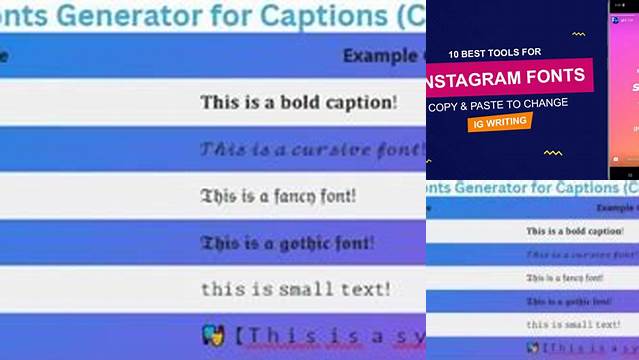
Cool IG Fonts: Copy & Paste Magic For Your Posts
Hey everyone! Let's talk about spicing up your Instagram game. You know, making your bio, captions, and stories pop with some seriously cool fonts? Forget the boring default fonts – we're diving into the world of fonts IG copy and paste! This is all about how you can easily grab unique fonts and add them to your Instagram posts to grab attention and express your personality. Get ready to make your Instagram profile stand out from the crowd!
H2: Mastering the Art of Fonts IG Copy and Paste: A Beginner's Guide
Alright, so you're ready to level up your Instagram font game? Awesome! The secret weapon here is the magical fonts IG copy and paste technique. It's super simple, but it opens up a whole universe of design possibilities. First things first, you need to find a cool font generator. There are tons of free online tools out there. Just type "Instagram font generator" into your search engine, and you'll be flooded with options. These generators are typically super user-friendly. You just type your text into the provided box, and the tool instantly converts it into a bunch of different font styles. You'll see everything from elegant cursive to bold, funky styles and even some super-creative symbols and characters. Once you've found the perfect font for your needs, simply copy the text from the generator. Now comes the easy part: pasting it into your Instagram bio, captions, or stories. On your phone, just tap and hold in the text field until the "Paste" option appears. Boom! Your text is transformed. It's that easy, guys! Keep in mind that Instagram sometimes has limitations on how certain fonts appear. Experiment with different font styles to see what works best for your brand and aesthetic. Also, bear in mind that not all fonts will display perfectly on every device, but most of them are pretty compatible. This method allows you to sidestep the native Instagram font limitations. This provides a unique way to express your personality. It's a simple yet powerful way to make your profile visually unique. Remember, your Instagram profile is your digital storefront, and a good font can make all the difference. Make sure the fonts you choose align with your brand’s style and the message you’re trying to convey. Get creative, have fun, and let your personality shine!
H2: Top Free Fonts IG Copy and Paste Generators You Need to Know
Okay, let's get down to the nitty-gritty. Finding the right fonts IG copy and paste generator is the key to success. Luckily, there's a plethora of excellent, free tools available online. One of the most popular is LingoJam. It's super easy to use, with a clean interface and a wide variety of font styles to choose from. You simply type your text, and it generates tons of different options instantly. Another fantastic option is Instagram Fonts, which is also incredibly user-friendly. It offers a good selection of fonts, from the classic to the quirky, and allows you to preview your text in real-time. If you’re looking for something a little more advanced, consider using a site like Cool Fancy Text Generator. This one lets you create fancy text and includes a few more stylized options, like adding small symbols and decorative elements. Remember to also check out sites such as Stylish Text, which lets you customize your text with special characters and effects. Using different generators gives you a much wider array of choices. When picking a generator, consider its ease of use and the variety of fonts available. Think about your branding! Do you lean towards something elegant, minimalist, or bold and playful? Choose a generator that aligns with your style. Always test your generated text on your Instagram profile to make sure the fonts display correctly on your end and for your followers. Experimentation is critical. Try out different generators and fonts to find what works best. Don't be afraid to try unique combinations and styles. The goal is to make your Instagram feed stand out, so get creative and make it your own. Make sure to save your favorite generators and return to them whenever you need a fresh new look for your profile.
H2: Elevating Your Instagram Bio with Fonts IG Copy and Paste
Your Instagram bio is prime real estate. It's the first thing people see, and it has to make a great first impression. Using fonts IG copy and paste in your bio is a brilliant way to grab attention and make it stand out. Instead of a boring, standard font, you can use creative fonts to make your bio both unique and memorable. When crafting your bio, start by considering your target audience. What kind of fonts would appeal to them? Do you want something sleek and professional, or playful and whimsical? Choose fonts that reflect your brand's personality and the message you are trying to convey. Keep it concise. Instagram bios have a character limit, so you've got to be strategic. Use your selected font to highlight the most important details: your name, your business, a call to action, or any relevant links. You want to make sure that the vital information is easy to find, and the font can help with this. Remember to use emojis to break up the text and add visual interest. Emojis work really well to communicate your messages. They can be combined with unique fonts to make your bio even more engaging. Before you save your bio, always check how it looks on your Instagram profile. Different devices and platforms may display fonts slightly differently. Make sure your bio appears clear and readable on every device. After you've set up your bio, don't be afraid to refresh it. Changing your font periodically keeps your profile looking fresh and interesting. This gives your followers a reason to revisit your profile. Using a unique font shows your creativity. It lets potential followers know what to expect from your feed and style. Your bio is the best way to give people a glimpse of who you are and what your profile is about. Remember to use it to get followers and enhance your profile.
H2: Crafting Captivating Captions with Fonts IG Copy and Paste
Captions are where you truly engage with your audience. They provide the context for your photos and videos, and using fonts IG copy and paste can help you make your captions more eye-catching and engaging. When using fonts in your captions, think about how you can emphasize certain words or phrases to draw attention. Use bold or italic fonts to highlight keywords, calls to action, or important information. This will help your audience quickly grasp the main points of your message. Break up long blocks of text with different fonts to improve readability. This is especially crucial if you have a lengthy caption. Using different fonts makes the caption easier to digest. This keeps your audience engaged. You can also use fonts to create visual contrast. For example, you can pair a clean, minimalist font with a bolder, more decorative one. This contrast will make your captions look more dynamic. Remember to choose fonts that are easy to read. While it's tempting to use highly stylized fonts, some can be difficult to decipher. Make sure your captions are readable on different devices. Like with your bio, always check how your captions look. Test it to make sure it renders correctly for all of your followers. Using emojis and symbols adds visual interest. Consider mixing emojis with your chosen fonts to create a more expressive caption. Before posting, preview your caption to ensure it looks the way you want it. The best strategy involves some experimentation. Test different font combinations and styles to see what resonates best with your audience. Track your engagement metrics. Observe which fonts and styles perform best in terms of likes, comments, and shares. Your captions should be visually appealing and easy to understand. The goal is to get your audience reading and engaging with your content. Good fonts combined with creativity can help. Use this approach to take your Instagram profile to the next level. The right combination of fonts will make your captions both eye-catching and memorable.
H2: Secrets to Stylish Instagram Stories with Fonts IG Copy and Paste
Instagram Stories are a powerful tool for engaging with your audience. You can elevate your stories by incorporating fonts IG copy and paste, injecting personality, and enhancing their overall appeal. When using fonts in stories, consider the visual context. Stories are ephemeral, and you want to create content that grabs attention quickly. Choose fonts that work well within the design of your story. Think about the images, videos, and other elements you are using. Ensure that your fonts complement these elements without overwhelming them. Using different fonts strategically helps to emphasize key messages and calls to action. You can highlight a special offer, a poll question, or a link to your website. This way, your audience can easily understand the information. Experiment with color palettes. Pair your chosen fonts with colors that are harmonious with your brand. Colors play a crucial role in making your stories visually appealing. Using a consistent color palette contributes to your brand's identity and makes your stories more recognizable. Incorporate animations and stickers. Instagram provides a variety of animation effects. Combine these with your unique fonts. Use stickers to make your stories even more interactive. This allows for more engagement. Keep your stories concise. People often quickly scroll through stories, so your message must be easily digestible. Use shorter sentences and highlight the most important information. Testing your stories is important. Preview your story before publishing to make sure everything looks good. Check on different devices. Make sure the fonts and designs are well rendered. Always remember to use stories to interact with your audience. Use polls, quizzes, and Q&A stickers to encourage feedback. Your content should be fun and engaging. Be creative and experiment. Try out different combinations of fonts, colors, and animations to see what works best. Pay attention to what your audience responds to. Your goal should be to make your stories more visually appealing and engaging. The right fonts and designs will help you reach your objectives and make your stories much more captivating.
H2: Avoiding Common Mistakes When Using Fonts IG Copy and Paste
While fonts IG copy and paste offers a fantastic way to customize your Instagram, it's easy to stumble. Avoiding these common mistakes ensures that your profile looks professional and effective. One of the biggest pitfalls is using fonts that are difficult to read. Always prioritize legibility. Choose fonts that are clear, even when they are displayed in smaller sizes. Select fonts that align with your brand’s image. Your font choices should reinforce your brand’s overall style. Using fonts that clash with your brand’s style can confuse your audience. Don’t overuse fancy fonts. While you may be tempted to use a different font for every word, too many different fonts can be distracting. Sticking to a few consistent fonts will keep your profile professional and visually appealing. Always consider font sizes. Test how your fonts look at different sizes. Sometimes a font that looks great in a generator might be too small or too large on Instagram. Ensure your fonts are visible and readable. Don't forget to check on different devices. Font rendering can differ across phones and tablets. Always preview your posts on different devices to ensure your chosen fonts are correctly displayed. Pay attention to spacing. Insufficient spacing between words or lines can make text difficult to read. Make sure there's enough space. Good spacing enhances the readability of your content. Remember that your goal is to make your profile more appealing and easy to read. Using the correct fonts with care is a sure way to improve your profile. These are some tips to make sure you don’t damage your profile with fonts.
H2: Troubleshooting Font Issues on Instagram
Even with the best tools and practices, you might face issues with fonts IG copy and paste. Knowing how to troubleshoot these problems will keep your Instagram experience smooth. If a font doesn't display properly, the first step is to double-check the generator. Make sure you copied the text correctly. Also, ensure that the font generator is working properly. Try refreshing the generator or using another generator. Sometimes, fonts may not render correctly on all devices. Check how the font looks on different devices. Make sure the fonts are displayed as expected on different screens. If some users report font issues, advise them to update their Instagram app. Old versions of the app might not fully support some font styles. Clear your Instagram app cache. Occasionally, cached data can cause display issues. Clearing the cache can often resolve these problems. Ensure that the font you are using is compatible with Instagram. Some highly stylized fonts may not be supported. Try using a different font that is similar but simpler. If you have trouble with the font in your bio or caption, try editing and re-pasting the text. Sometimes, a simple re-paste can fix display problems. Keep the text simple. Overly complex formatting or special characters may not render correctly. Try simplifying your text. If the problem persists, contact Instagram support. Explain the issues you are facing. They can often provide specific solutions or assistance. Stay updated. Keep your Instagram app updated to the latest version. This way, you’ll have access to the latest features, including improved font rendering. By addressing the issues methodically and checking these points, you'll improve your Instagram font experience and resolve any problems swiftly. Following these steps is important to ensure a smooth and visually appealing user experience.
H2: Fonts IG Copy and Paste: Legal Considerations and Best Practices
While using fonts IG copy and paste is a fun way to personalize your Instagram, it's crucial to understand the legal side and ensure you’re doing things correctly. Copyright is key. Always be mindful of the copyright of the fonts you use. Many fonts are free for personal use, but you might need a license for commercial purposes. It's essential to understand the licensing terms of the font you are using. If you are using the fonts for a business, make sure you have the proper commercial license. If the font is available for free use, always check for attribution requirements. Giving credit to the font designer or creator is often the polite and ethical approach. Avoid using fonts that could be considered offensive or could promote illegal activities. Make sure the fonts you select align with your brand values. Always use fonts ethically. Stick to fonts that respect copyright laws. Choose fonts that will promote positive messages. Review the terms of service of the font generators you use. Understand their rules and guidelines. Check your posts regularly. Ensure that the fonts used are not causing any infringement issues. Maintain high ethical standards. Always comply with the legal requirements. By considering these legal and ethical factors, you can make sure that your use of fonts is both creative and compliant. Following these guidelines is essential to protect yourself and your brand.
H2: The Do's and Don'ts of Using Fonts IG Copy and Paste on Instagram
Here are some Do's and Don'ts of using fonts IG copy and paste to ensure your Instagram profile remains appealing. Do choose readable fonts. Always make sure your fonts are easy to read. Don't use fonts that are too complex. Do choose fonts that match your brand. Don't use fonts that clash. Do vary the font sizes. Don't make all your text the same size. Do test your fonts on different devices. Don't assume your fonts render correctly. Do use fonts to highlight key points. Don't overuse too many different fonts. Do consider the aesthetics of your account. Don't ignore readability. Do have fun with your font choices. Don't forget to check for copyright. Do stay up-to-date on Instagram's features. Don't break any of the rules. Follow these tips for great results. These tips will help you to create the best impact. Always remember what to do and what not to do. This will help you succeed. Choose the right path. Follow these rules to enhance your performance.